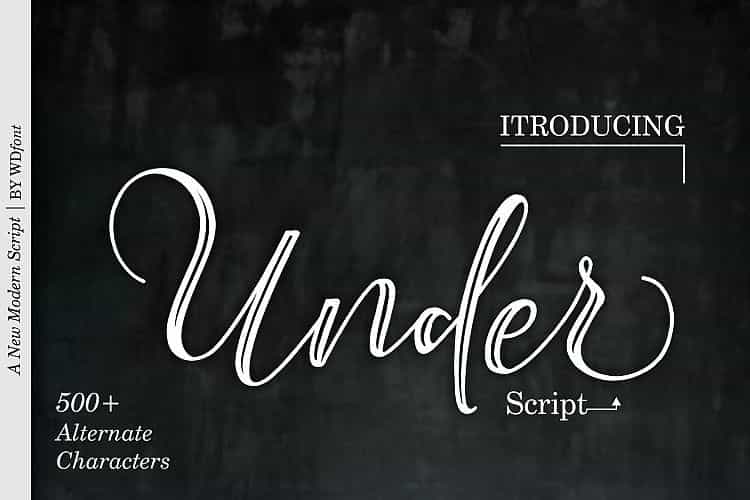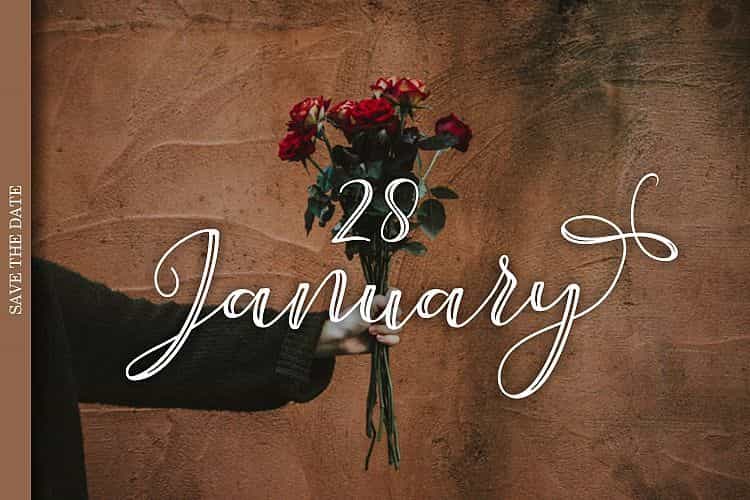
The Under Script is a script font with a smooth handwritten style. It has many alternative characters. It is ideal for branding, home décor, product packaging, business cards, invitation cards, etc. It can be used as a stylish text overlay to any background image or any other thing that needs a touch of elegance.